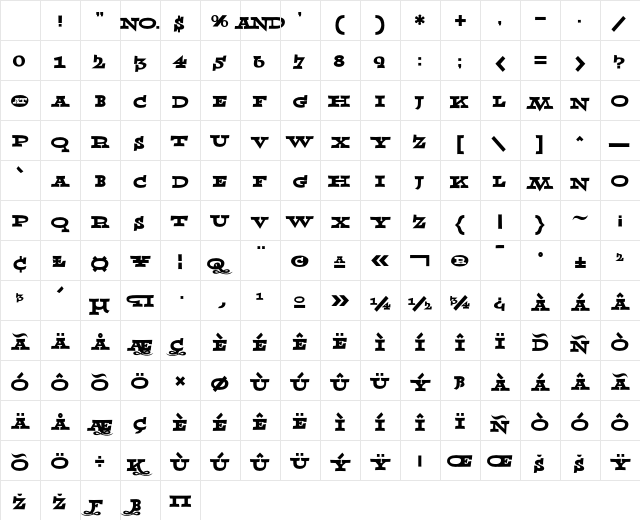
Complete Ablefont Outlaw glyph index. Displaying only characters natively supported by Ablefont Outlaw font.
Ablefont is a composed and adaptable typeface that performs quietly and consistently across a wide range of design contexts.